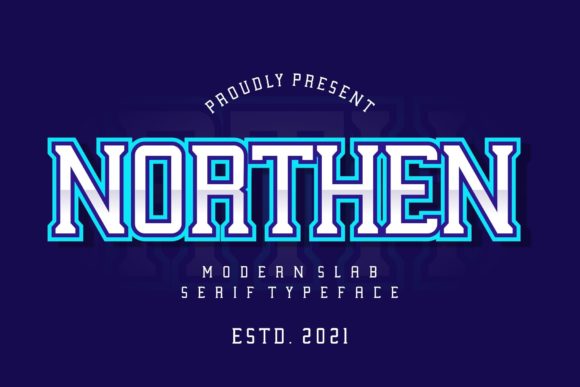
Northen Font
Introducing the Northen Font, the ultimate serif font for your next creative project. This font is the perfect choice for tracing letters, as its bold and assertive style will give your words a commanding presence.
With the Northen Font, you can create stunning letterforms that will captivate your audience. This font is perfect for creating logos, headlines, posters, and any other project where you want to make a big impact.
The Northen Font is also incredibly versatile, so you can use it for a wide range of projects. Whether you're working on a personal project or a commercial project, this font will help you create eye-catching and sophisticated designs.